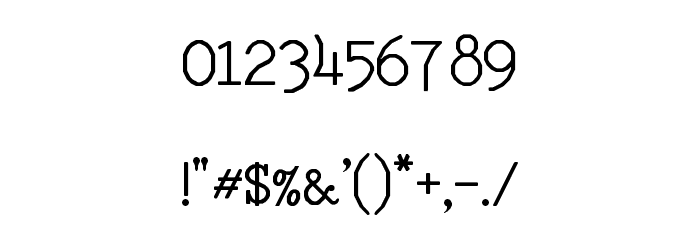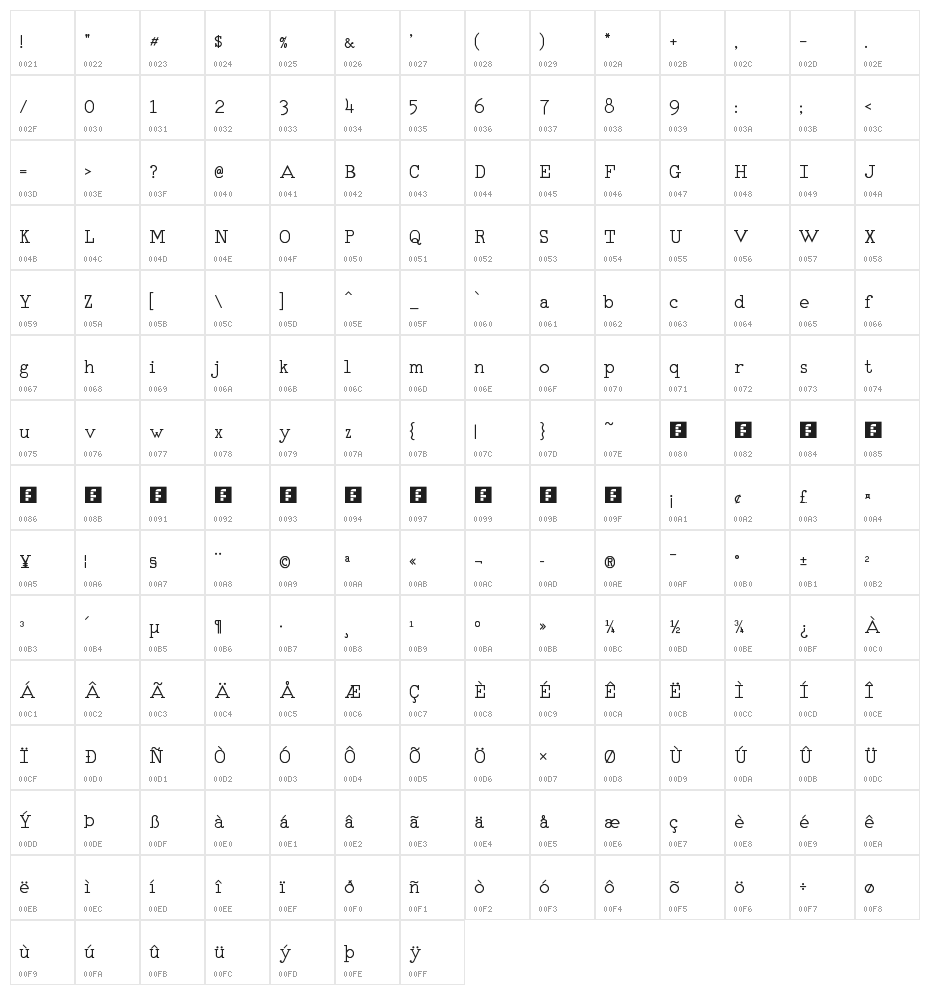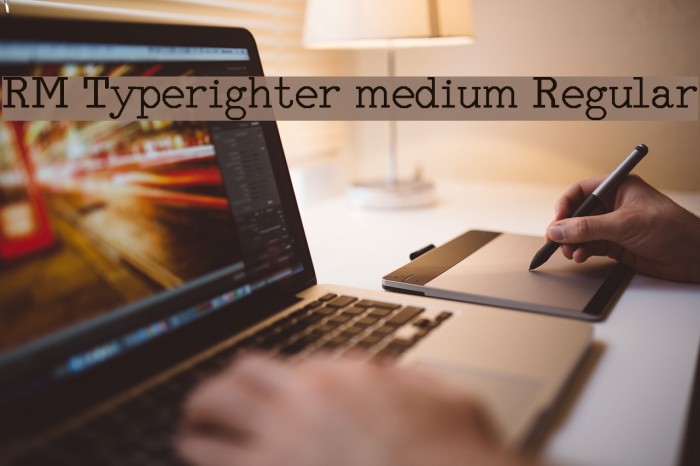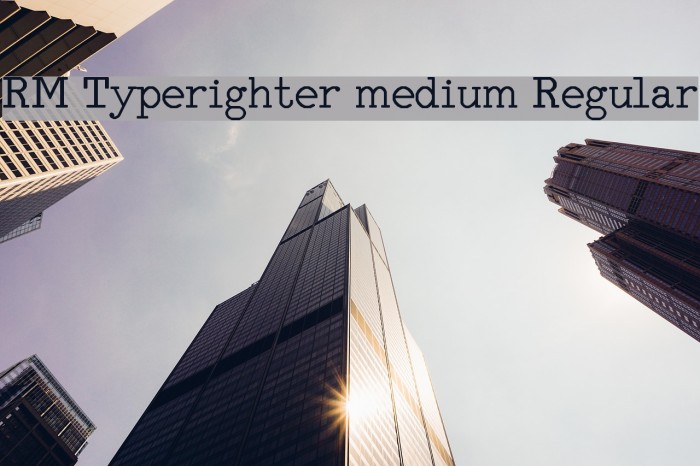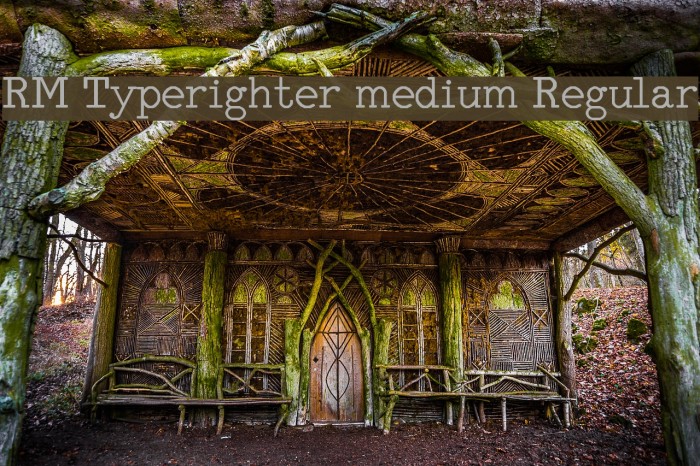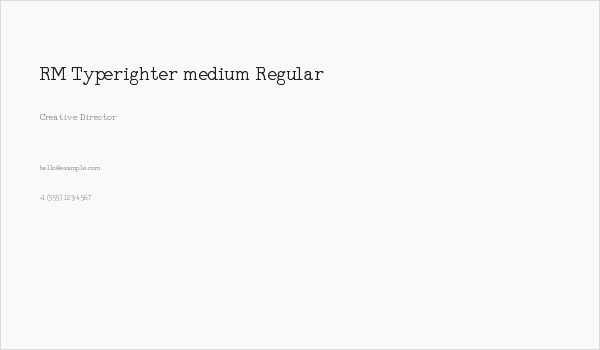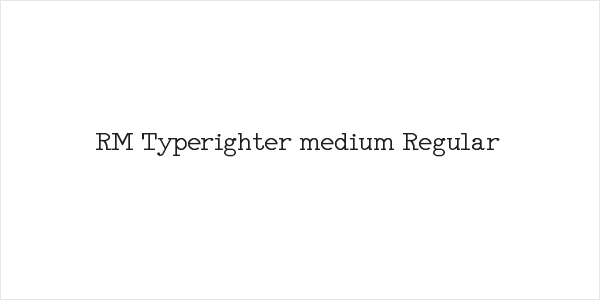
RM Typerighter medium Regular Font
RM Typerighter medium Regular Description
This typeface features a classic typewriter aesthetic with a modern twist. The characters are monospaced, providing a uniform and orderly appearance. Each letter is distinct and clear, with rounded edges that soften the overall look. The uppercase letters are bold and commanding, while the lowercase letters maintain a consistent height, contributing to a balanced and harmonious design. The numerals are straightforward and easy to read, making them suitable for various applications. Special characters are included, enhancing the font's versatility. This font is ideal for projects that require a vintage or retro feel, yet it remains highly legible and functional for contemporary use.
| Use Case | Headlines, Body text, Logos, Coding |
| Proposed Projects | Ideal for coding, retro-themed designs, typewriter-inspired projects, and any work requiring a vintage touch. |